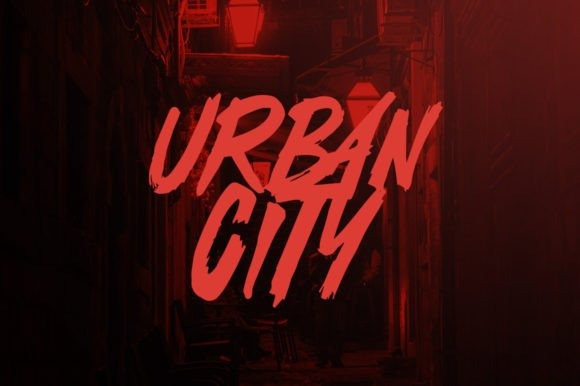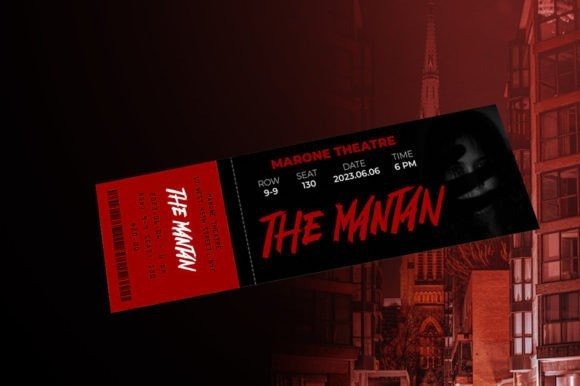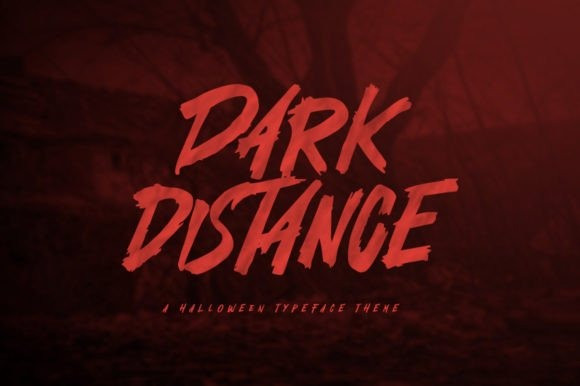
Dark Distance Font
Dark Distance Font, is a unique and attractive display font. Oddly enough, this font looks really good in a variety of contexts! This font is suitable for designs with horror and Halloween concepts.
Emphasize horror in your designs by using this font. It can easily be matched to an incredibly large set of projects, so add it to your creative ideas and notice how it makes them stand out!